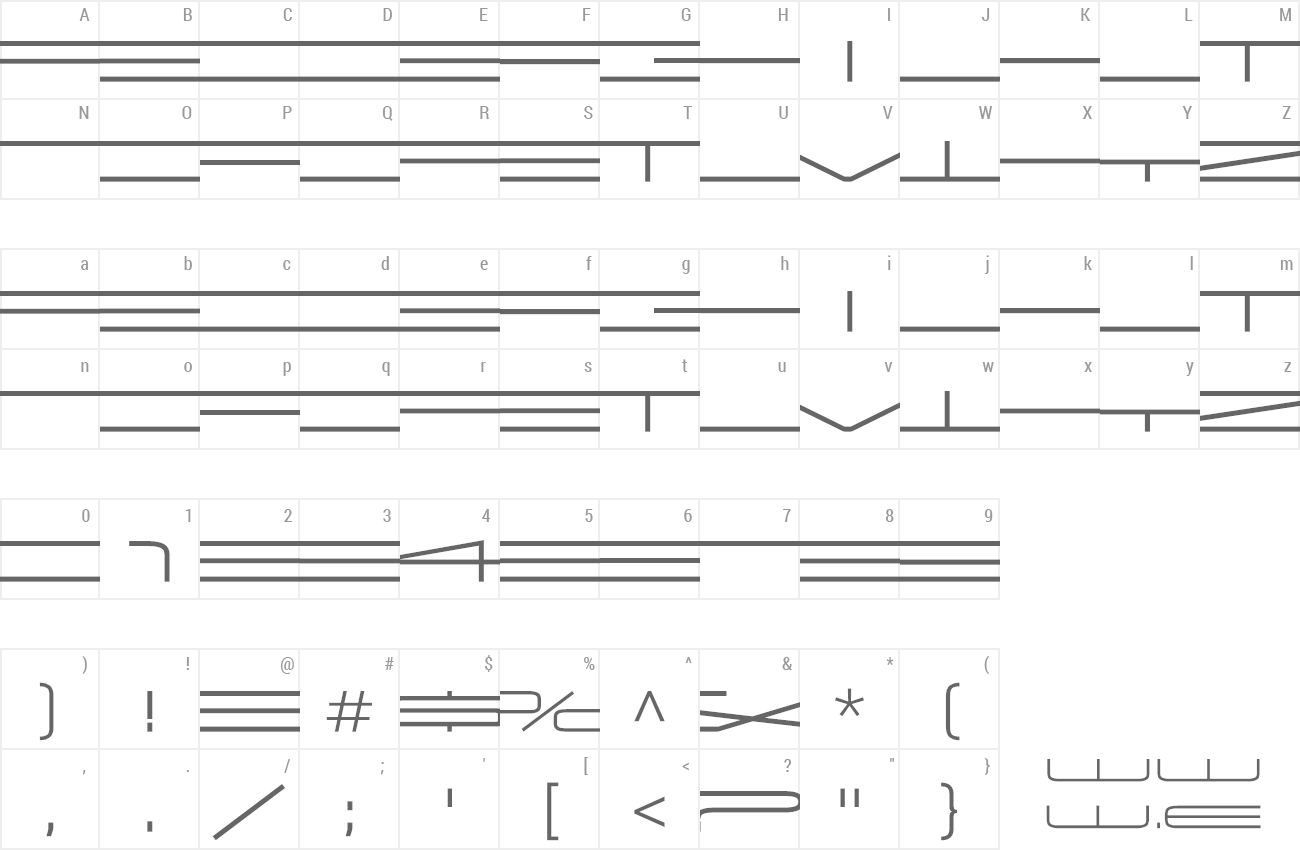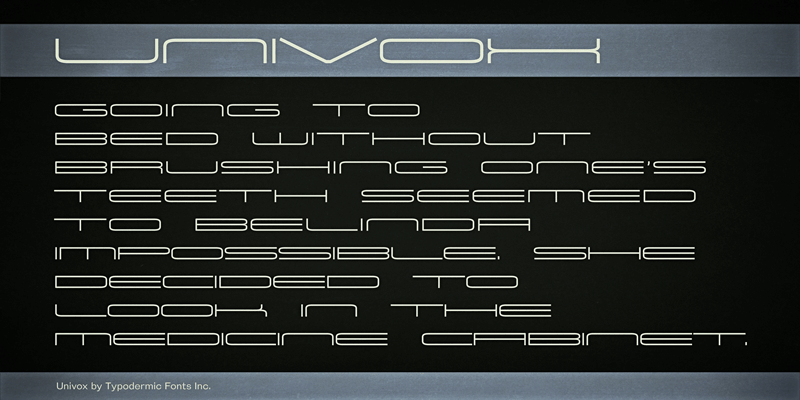
| Font name: | Univox |
Univox is a splendidly wide techno font with thin, consistent strokes. This font includes a license that allows free commercial use: sometimes referred to as a desktop license. This allows you to install the font on a computer and use it to create posters, web graphics, game graphics, t-shirts, videos, signs, logos and more. Read the license agreement for details. If you'd like to embed this font in an app, ebook, on the web or anything that's not covered by the desktop license agreement, visit the link below. You'll find distributors who offer different types of licenses or you can contact me for help. http://typodermicfonts.com/univox/ |